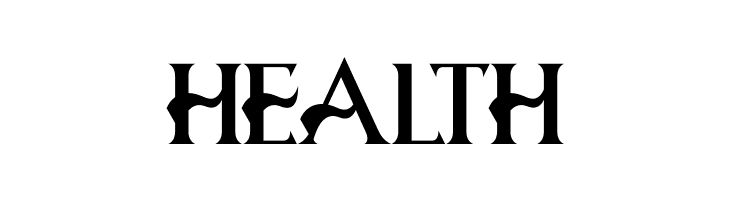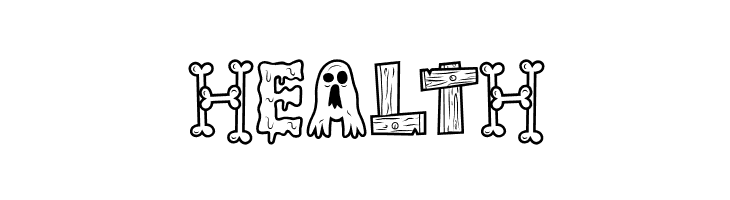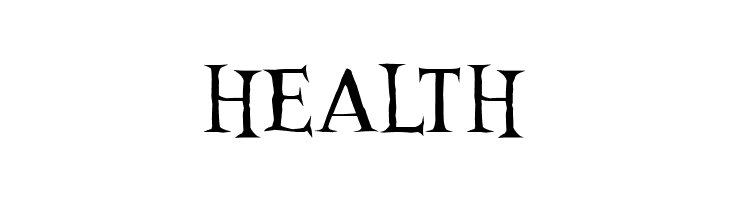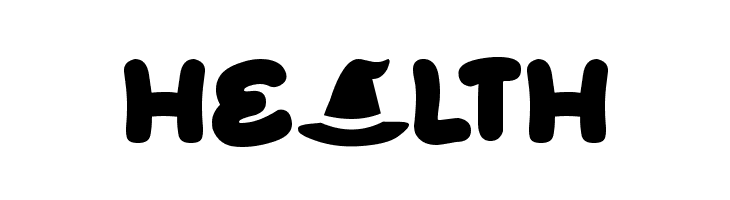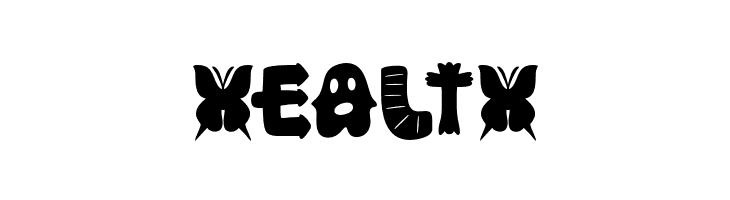
A horror-themed font with dripping, eerie characters.
A spooky, gothic-style font with sharp serifs and decorative details.
A playful, spooky decorative font with Halloween-themed elements.
A spooky, jagged font perfect for Halloween themes.
A bold, jagged font with a spooky, playful Halloween theme.
A spooky, jagged font perfect for horror and Halloween themes.
A playful, Halloween-themed font with bold, rounded characters and spooky elements.
A playful, whimsical font with a spooky, hand-drawn style.
A playful, spooky font with Halloween-themed decorative elements.
A bold, jagged font with a playful, spooky Halloween theme.